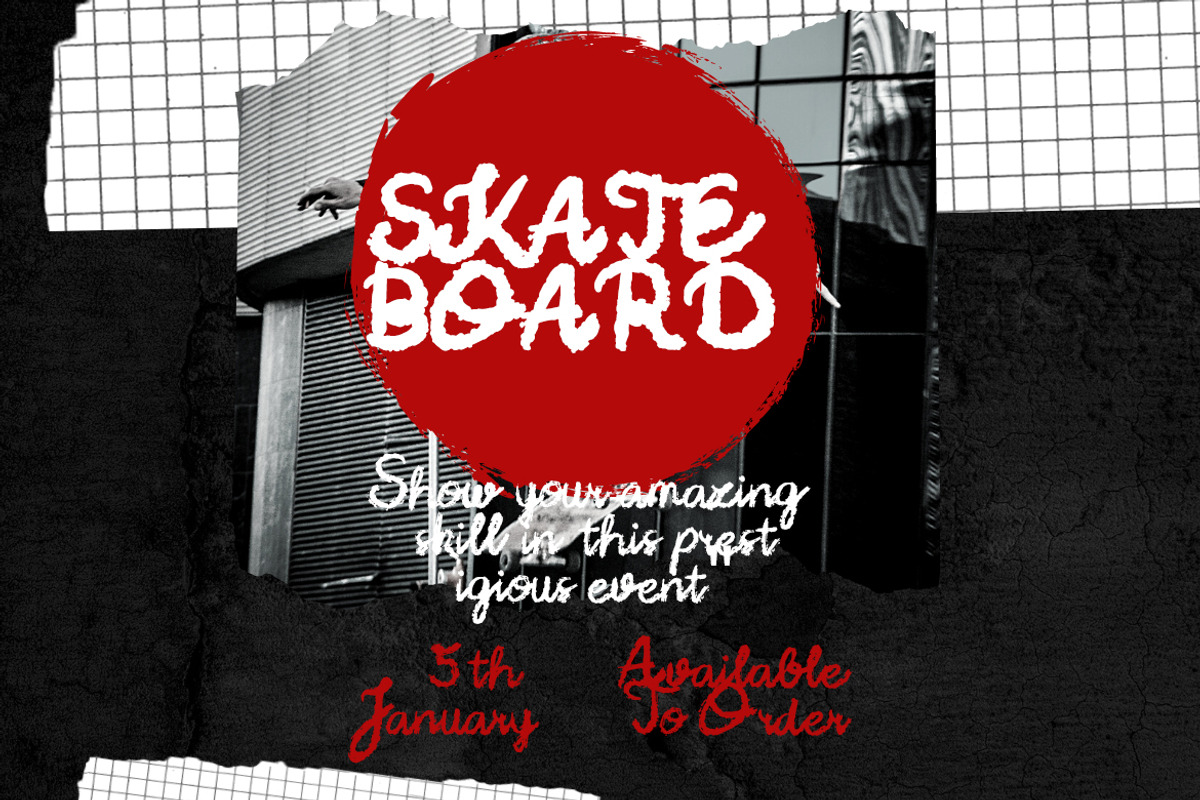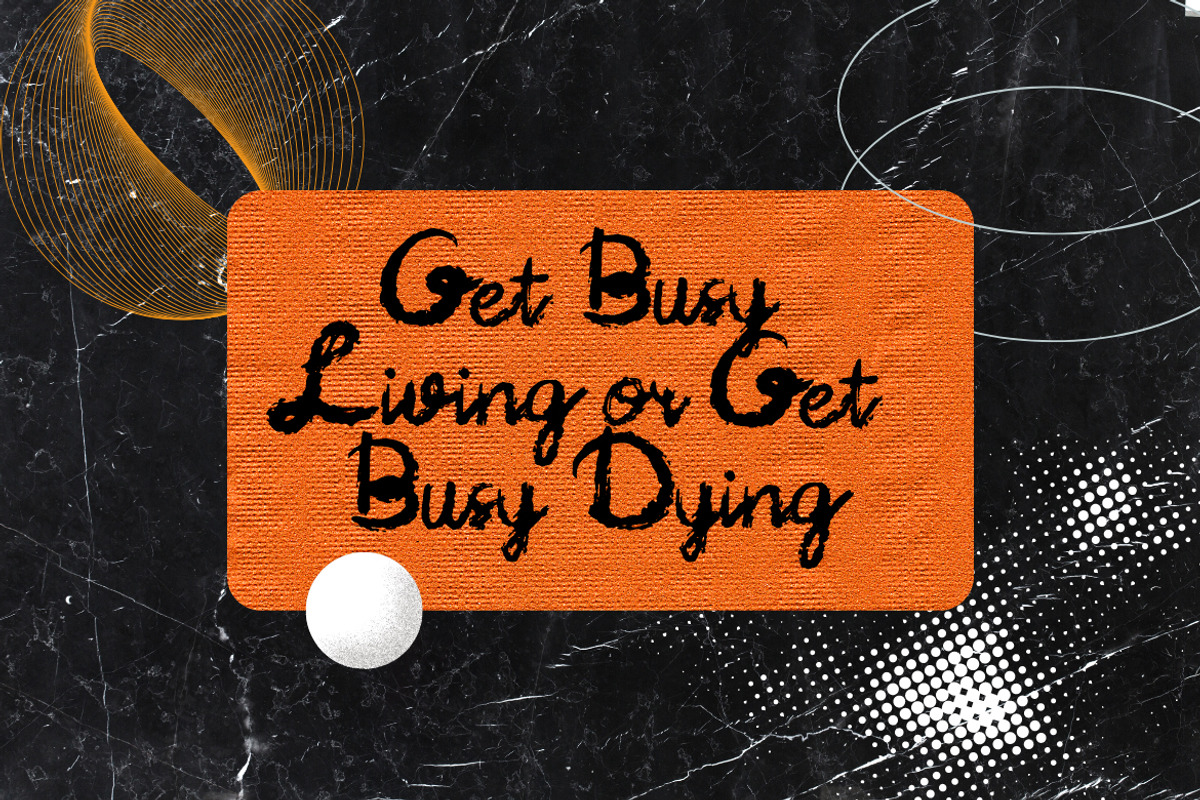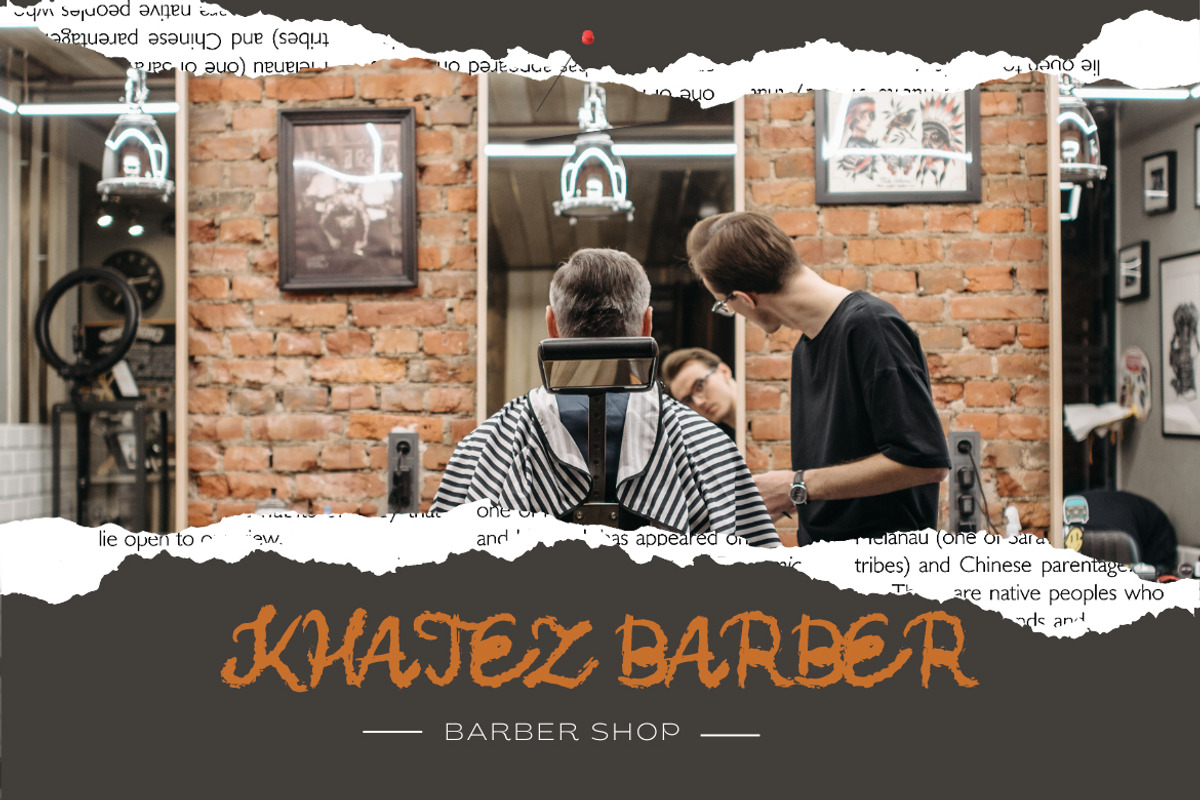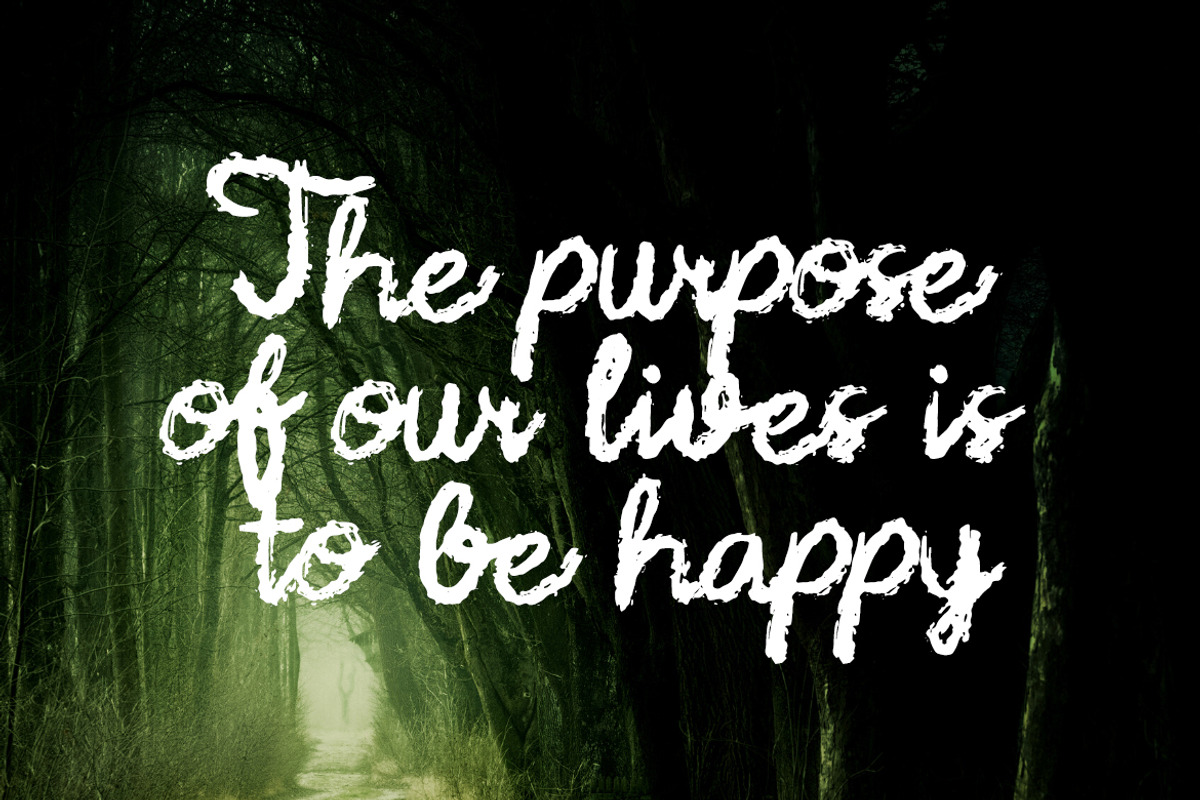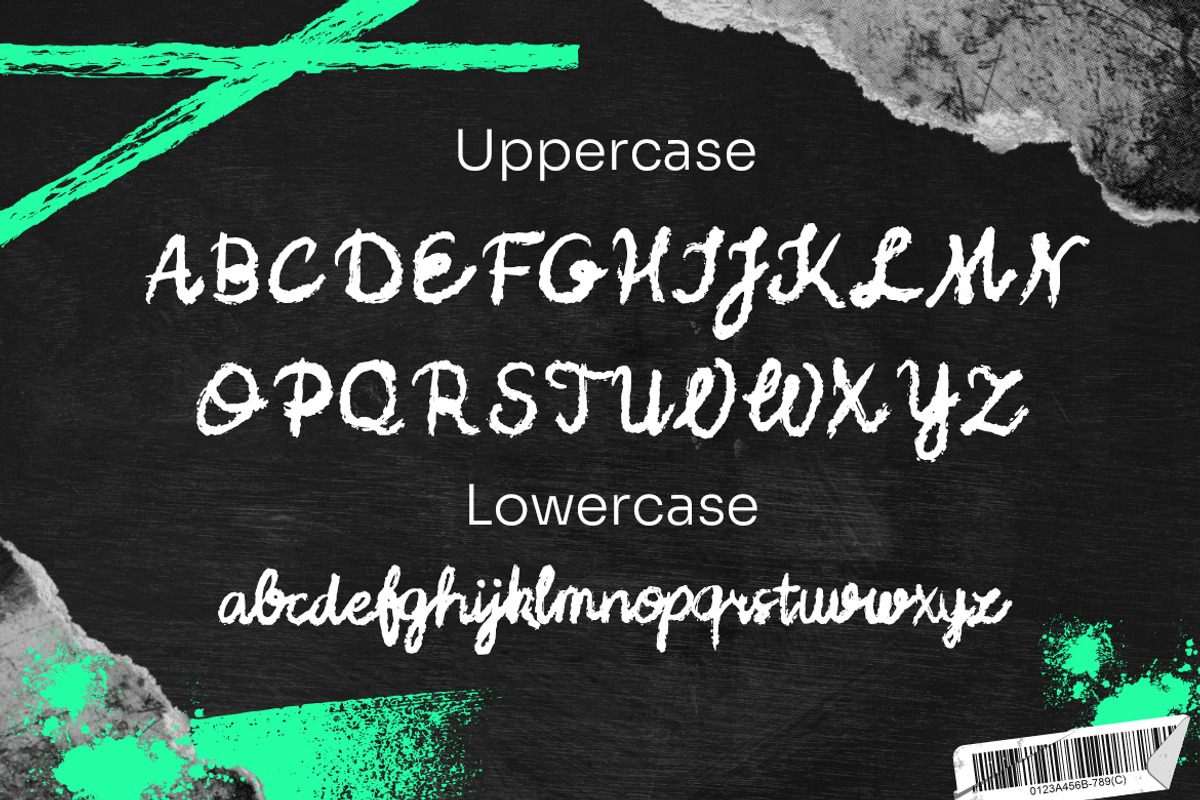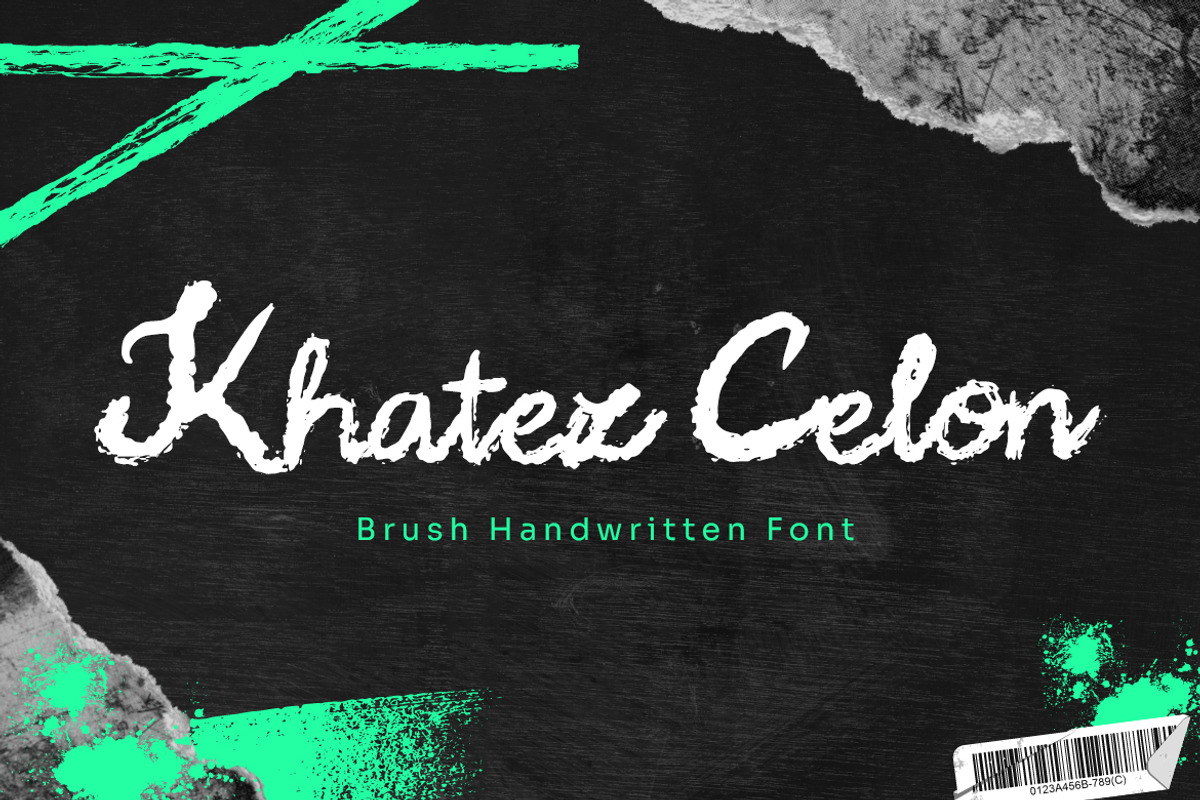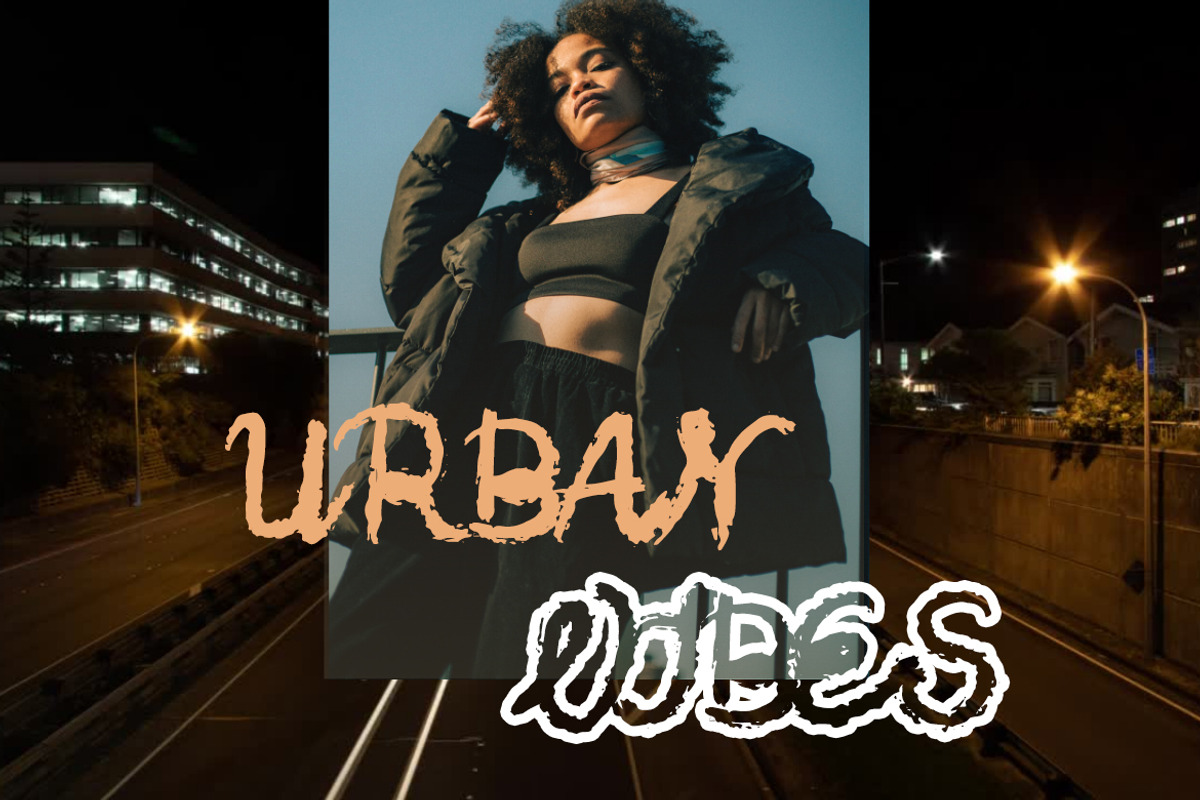
Khatez Celon - Brush Handwritten
Introducing Khatez Celon - Brush Handwritten
This Font is a delicate, elegant and flowing handwritten font. It has beautiful and well as a unique blend of ligatures a letter, so that the authors compose it with a and little swirly embedding, so that a modern font is formed and ready to make a statement by adding elegant and unique flair to your next design project. Add it to your most creative ideas and notice how it makes them come alive!